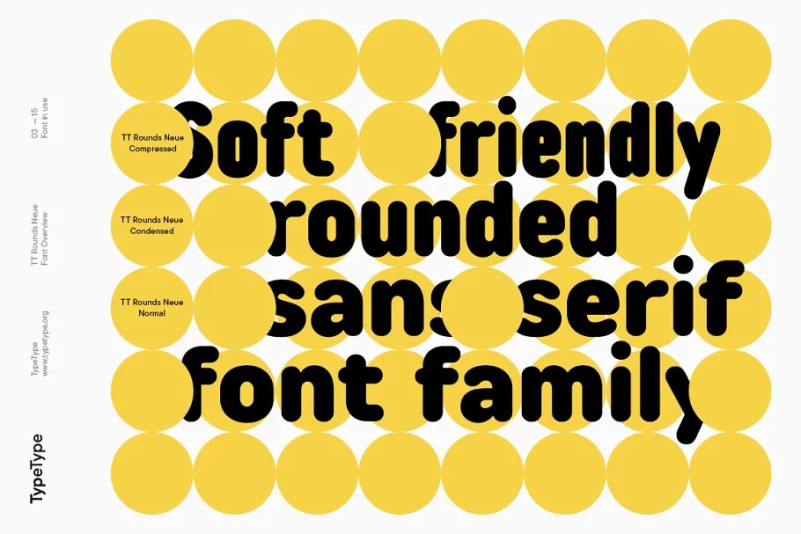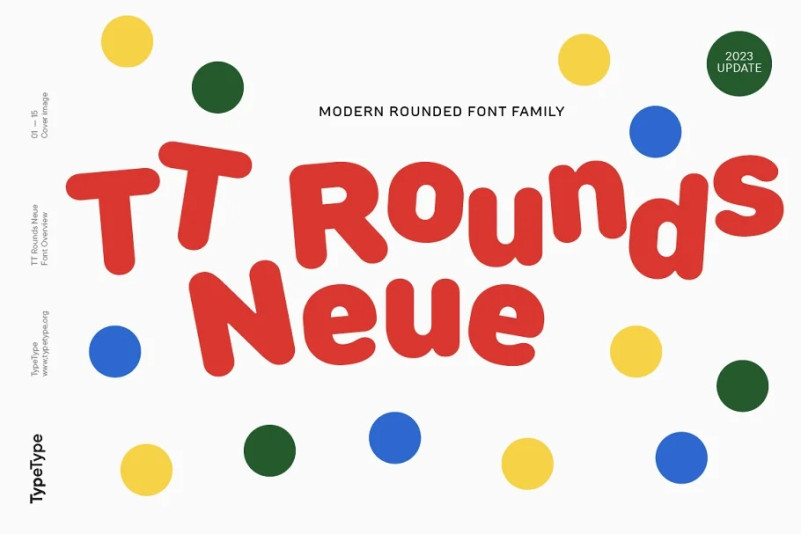
TT Rounds Neue Font
TT Rounds Neue Font was released as a logical continuation of the TT Rounds and TT Rounds Condensed fonts, more modern and technically advanced.
In the update, we have preserved the visual nature of the font, the proportions of the letters and the balance between bold and thin faces. We have made the typeface even more functional and convenient by fixing technical flaws, expanding the character set and adding a full-fledged variable font.
In the new version of TT Rounds Neue, you will find additional extended Latin and Cyrillic characters, updated kerning and hinting. The font can be used for headings or for text typesetting. The typeface is optimized for web, print and packaging design. Thanks to its soft character and rounded shapes, it is suitable for decorating baby food and eco-products.
TT Rounds Neue consists of 3 subfamilies: Compressed, Condensed and Normal. There are 55 faces in the font: 27 upright, 27 italic, and 1 variable font. Variability is across all three axes, thickness, slope, and width. Each style has 684 glyphs. The font has 29 OpenType features, including ligatures, a set of alternative characters, old-style figures, and many others.